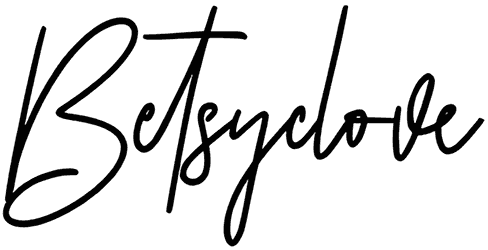
Betsyclove Font
For creative-minded users who have an appetite for a natural reflection on their presentation, handwritten font is a well-paid job. This asset, named Betsyclove, with a sophisticated and viable face, can communicate with all audiences to evoke their friendly and warm presence presently.